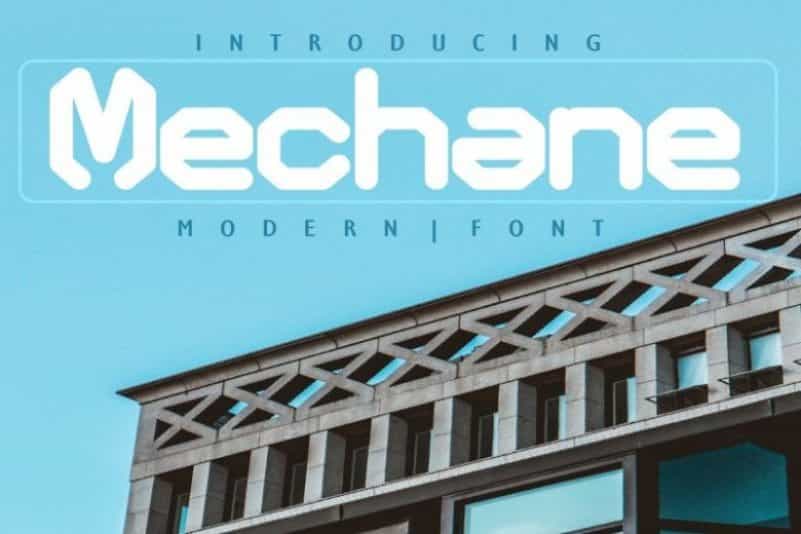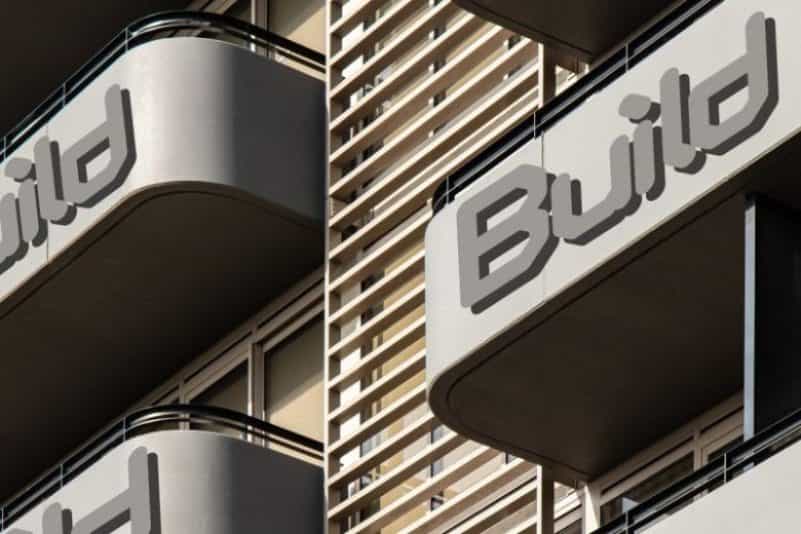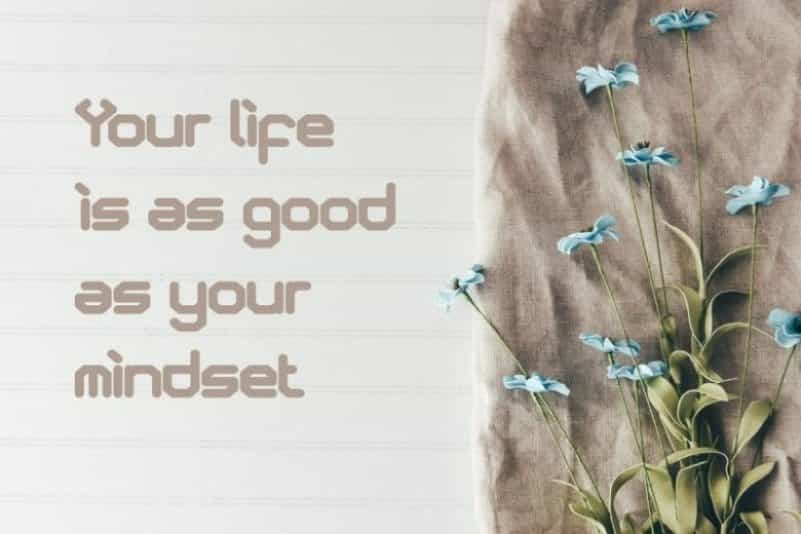
Discover Mechane Font, part of the Sans Serif Display collection—a versatile and unique font perfect for adding a personal touch to your projects. Download it for free and enjoy crafting designs with style, from invitations to social media posts. This font is available exclusively for personal use, giving you the freedom to create without limits. Unlock your creativity with Mechane Font today!
Mechane is a modern font with vintage look design styles, which can be used on both script and Display Sans serif typeface. These two fine fonts would be ideal to mix in your layout. It is appropriate for digital lettering, logo, t-shirt, print business cards, branding materials quotes nature photography and so on.